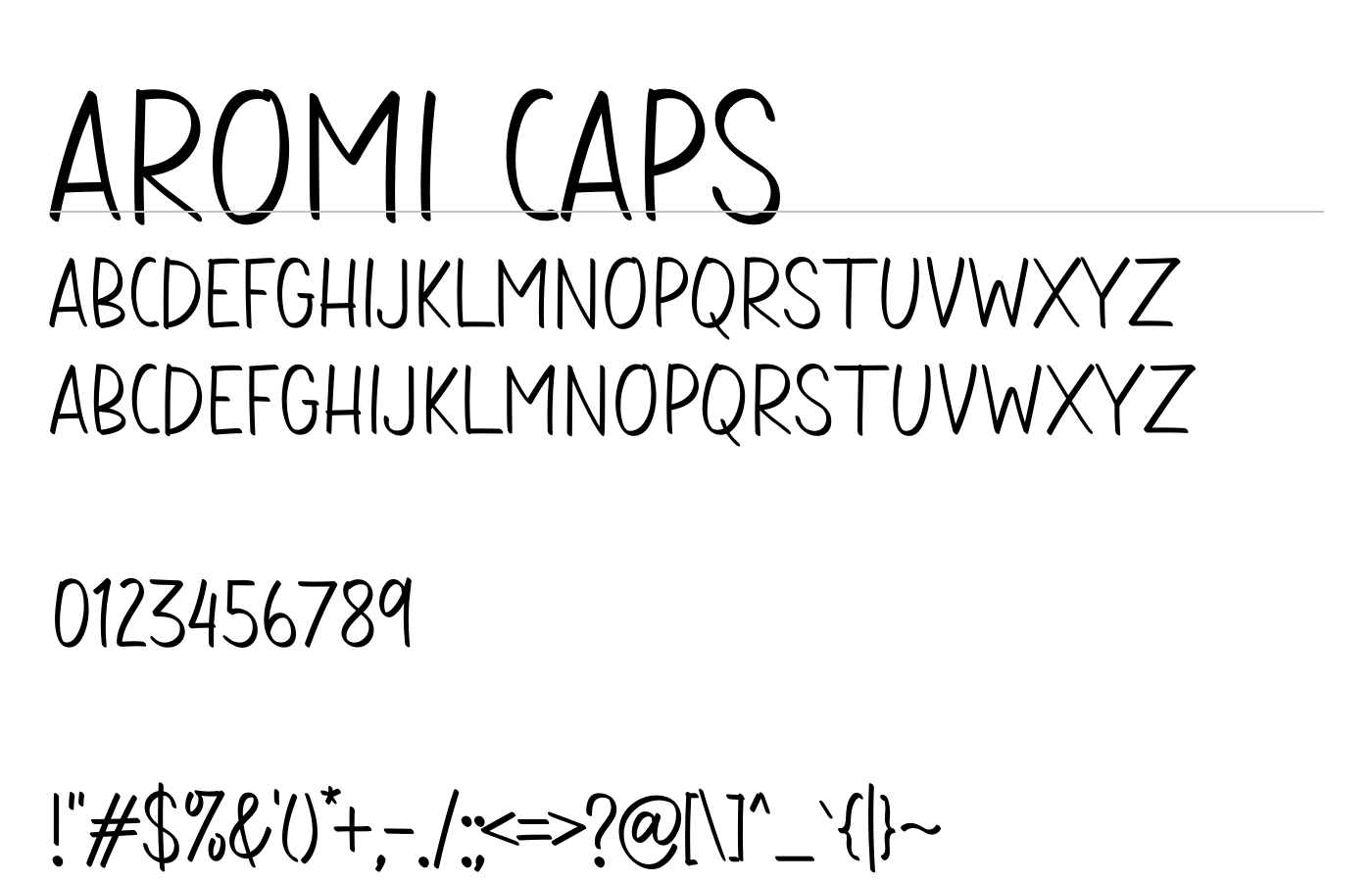
Aromi is a casual sans serif font with a hand-drawn, playful feel, featuring tall, narrow letterforms with a light stroke weight and organic, slightly irregular lines. Its relaxed, friendly style makes it perfect for informal branding, children’s products, and creative projects that want to convey warmth and approachability. Aromi works well in headlines, logos, and packaging where a handwritten, personal touch is desired.
Aromi Font
About Aromi Font
| Font family | Aromi Font |
| Designer | Eko Kurniawan | Letteratom™ |